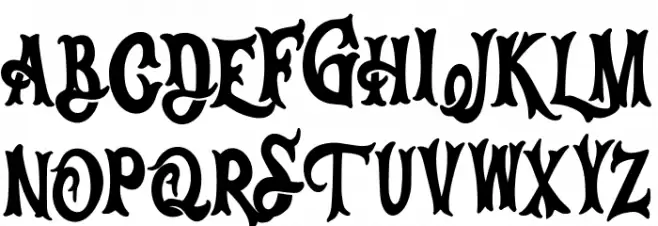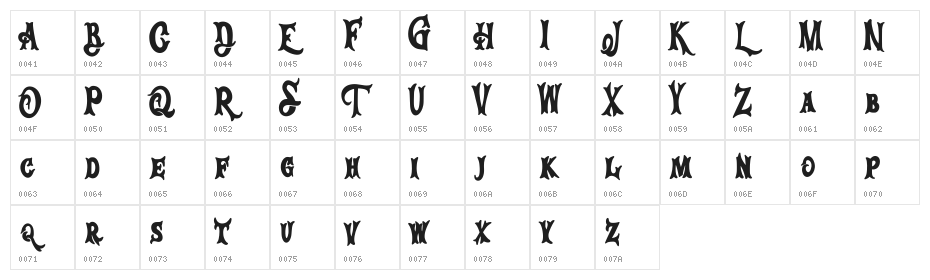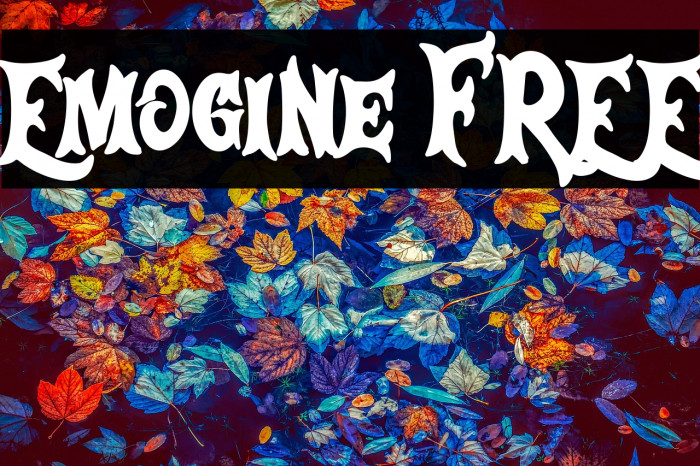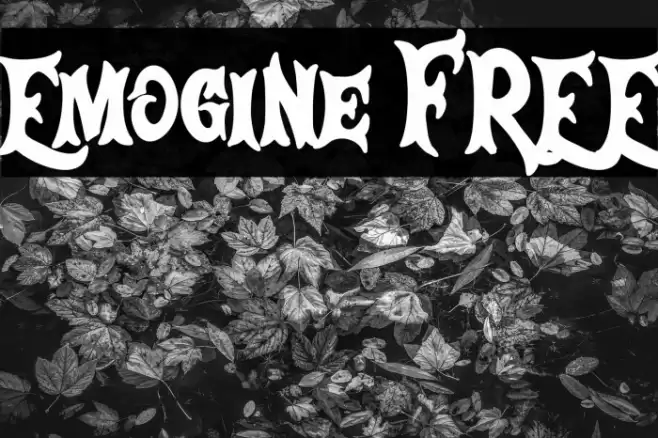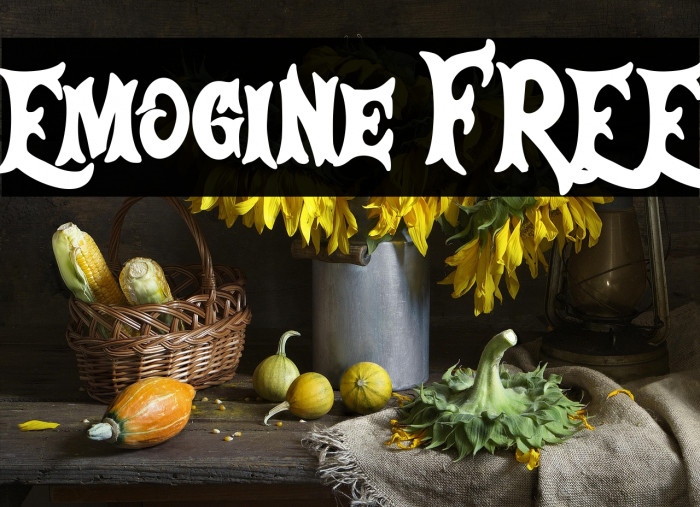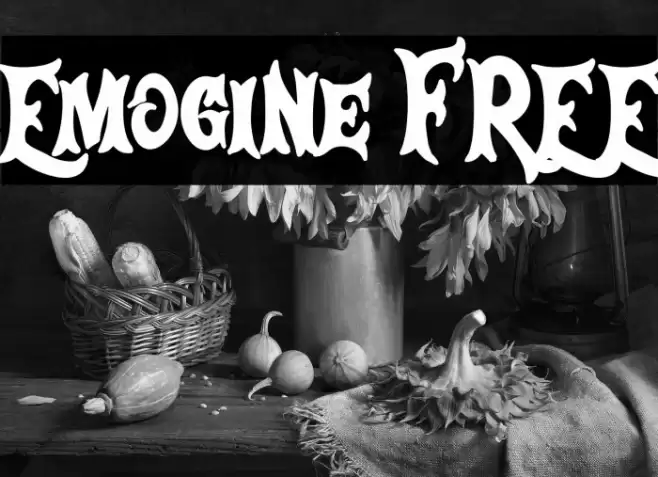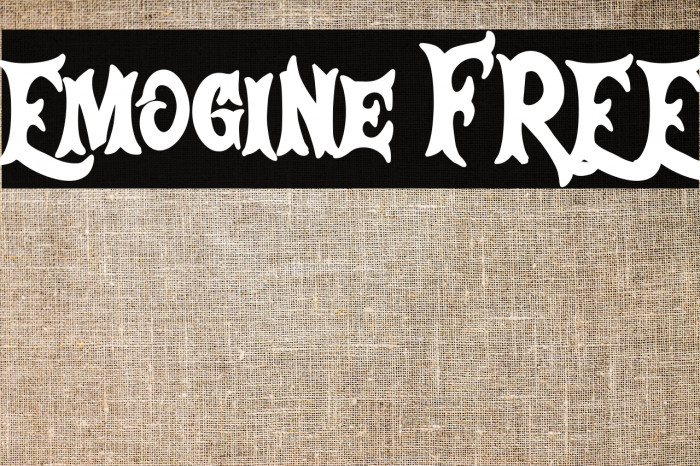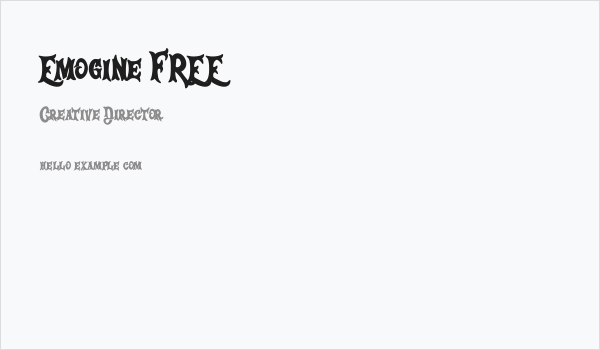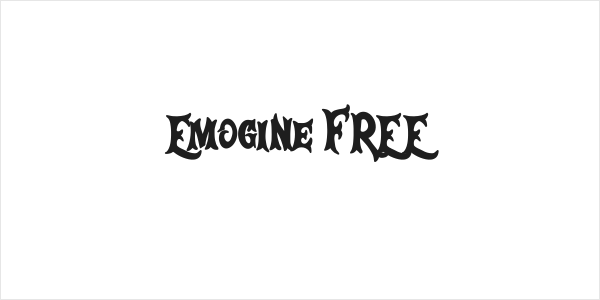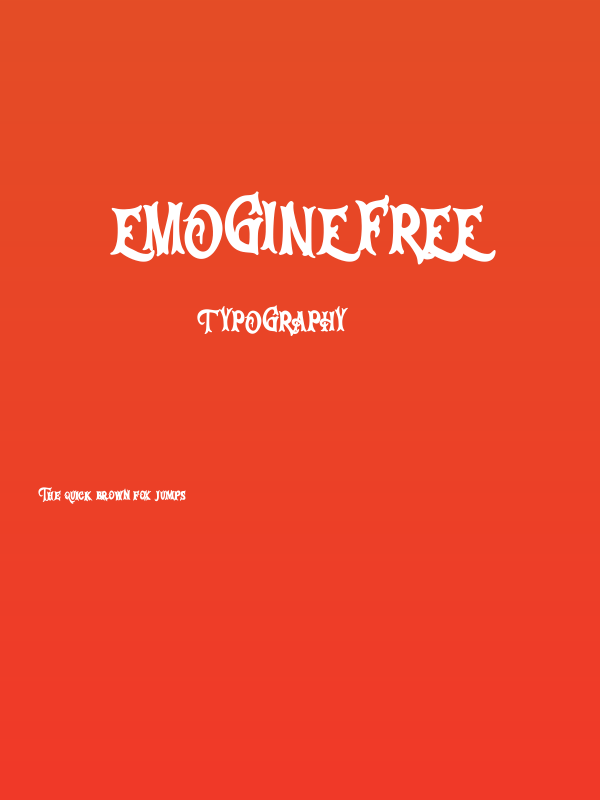
Emogine FREE Font
Emogine FREE Description
This font features a bold and dramatic style with exaggerated serifs and a strong presence. The characters are highly stylized, with intricate details that give them a unique, almost theatrical appearance. The uppercase letters are particularly striking, with their sweeping curves and sharp angles. The lowercase letters maintain the same level of detail, creating a cohesive look throughout. The numbers and special characters are equally ornate, ensuring consistency across all text elements. This font is ideal for projects that require a bold statement or a touch of vintage flair.